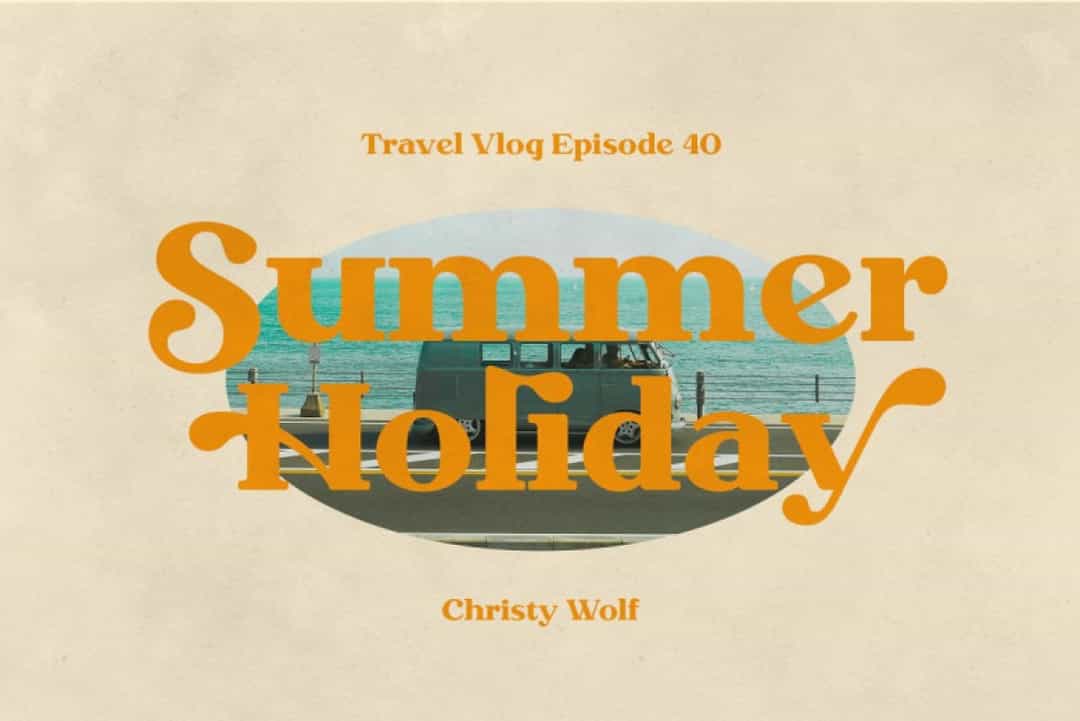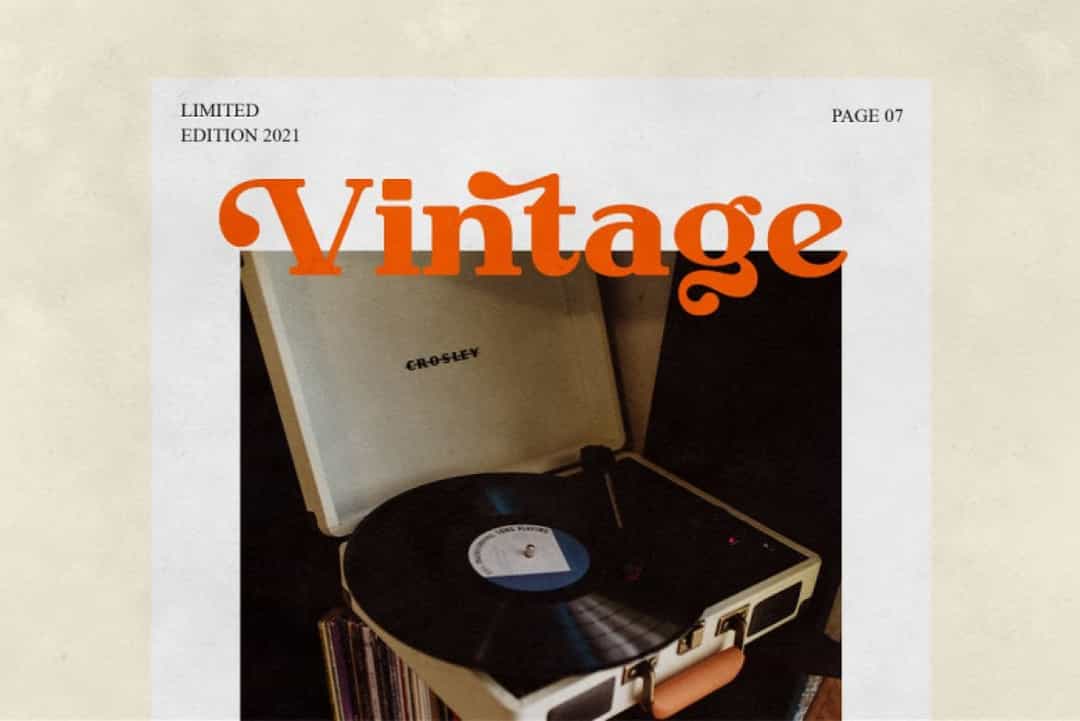
Megusto Font is an elegant retro serif inspired by Megusto, the Italian godfather. With soft yet bold curves and its signature soft-and-bold design, this font could make a great alternative for brandishing vintage wedding invitations, posters clothing and much more!